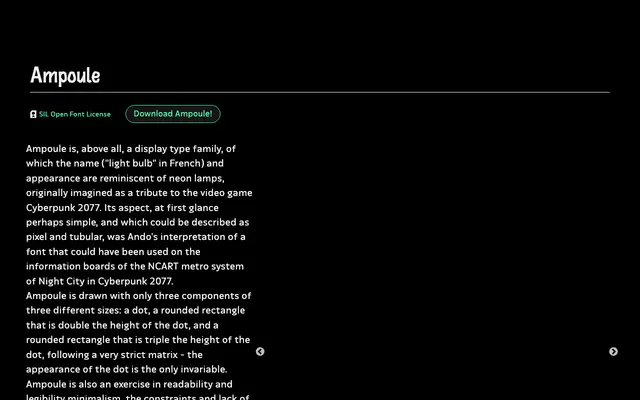
Ampoule
A strictly modular display family built from just three components, conceived as a tribute to Cyberpunk 2077 and the aesthetic of transit information boards.
Drawn from only three geometric primitives — a dot, a double-height rounded rectangle and a triple-height rounded rectangle — the entire typeface derives from a single invariable grid unit. Styles include Neon and Rats with slanted, backslanted and Tube variants, covering 748 glyphs with Latin European language support, Vietnamese, thematic icons and gender-inclusive French ligatures. Counterintuitively, the design reads more clearly at small sizes than large, a consequence of its rigorous minimalist construction.
Ampoule is a modular display typeface built entirely from three geometric components arranged on a strict grid, producing a pixel-like, tubular aesthetic reminiscent of LED information boards and neon signage.